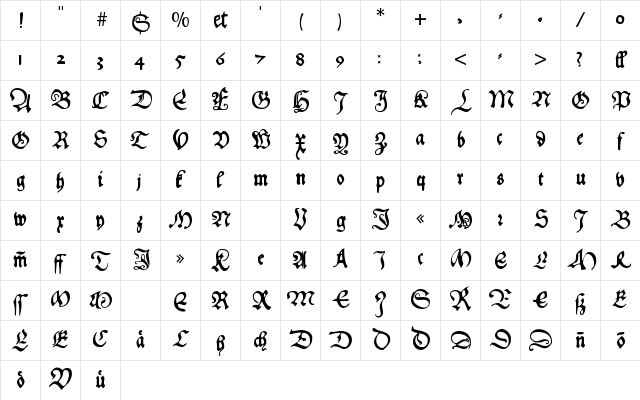
Complete HansFraktur Regular glyph index. Displaying only characters natively supported by HansFraktur Regular font.
HansFraktur draws on the rich tradition of blackletter calligraphy, with dense, angular strokes that evoke medieval manuscripts and old-world craftsmanship.